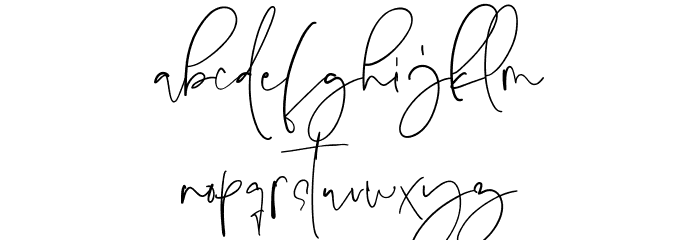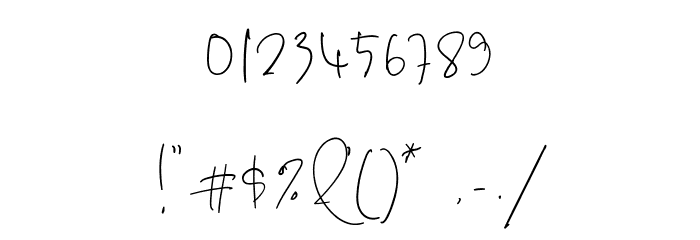
Karlena Hudson Font
This font exudes a whimsical and artistic flair, characterized by its flowing, cursive strokes that mimic the fluidity of handwriting. The letters are interconnected with a playful elegance, creating a sense of movement and spontaneity. The uppercase letters maintain a consistent height, while the lowercase letters exhibit a charming irregularity, adding to the font's unique personality. The numbers and special characters are crafted with the same artistic touch, ensuring a cohesive look throughout. This font is perfect for projects that require a personal, creative touch, such as invitations, greeting cards, or artistic branding.
A whimsical, cursive font with flowing, interconnected strokes.
- Proposed Projects: Ideal for invitations, greeting cards, artistic branding, and creative projects.
- Category: Handwritten
- Use Case: Logos, Headlines, Artistic projects